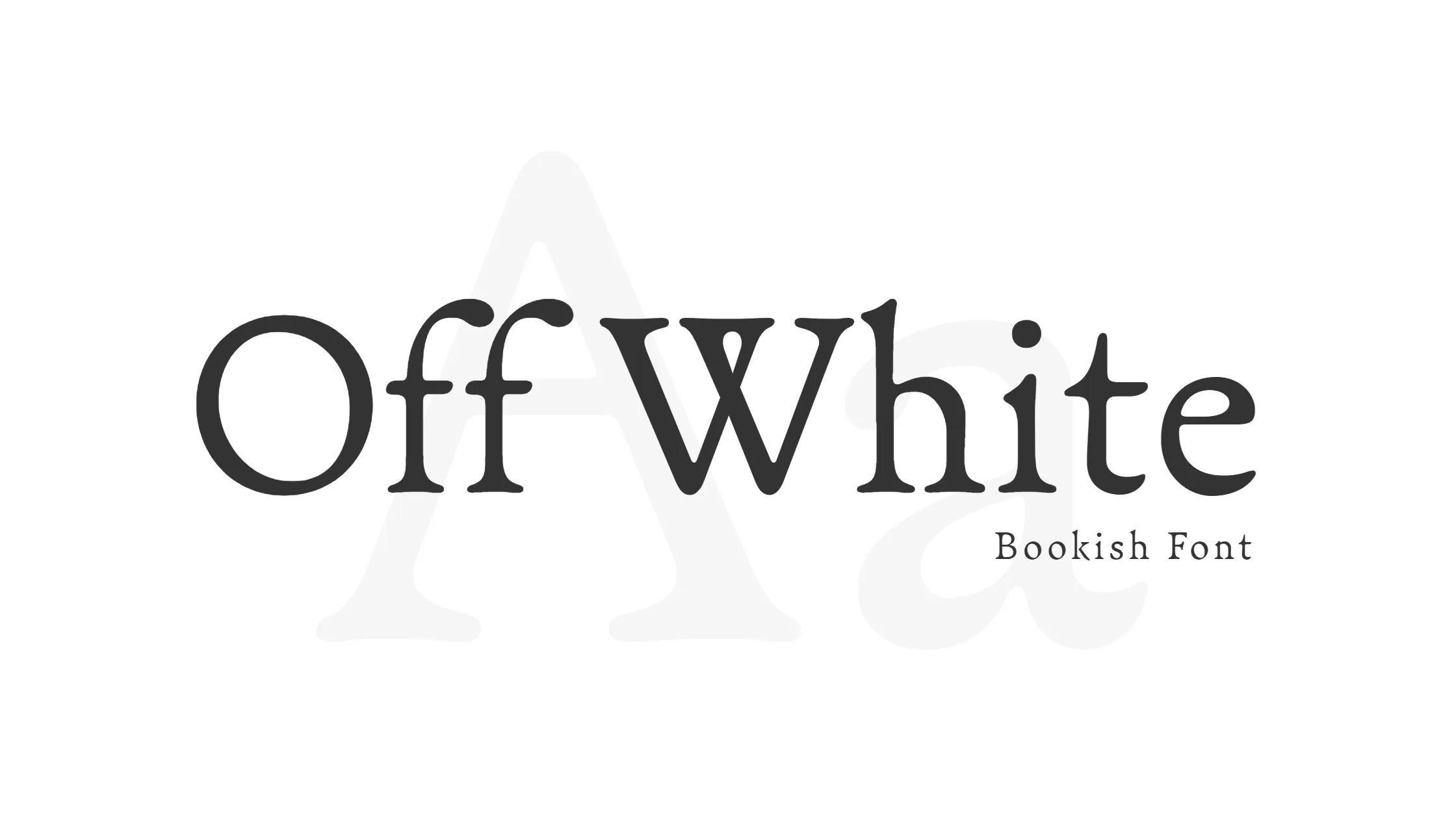
Yo! If you’re here looking for the dope Off-White font that’s been blowing up lately, then you’re in the right place! I’m here to hook you up with all the juicy details on this sweet typeface that’s been making waves in the fashion world.
So, let’s start with the basics. Off-White is a super popular fashion brand founded by the legendary Virgil Abloh back in 2012. And if you’ve seen their logo, then you know that it’s got a pretty unique and eye-catching font. That’s the Off White font we’re talking about here.
What makes this font so special? Well, for starters, it’s sleek, modern, and just all-around sexy. It’s the perfect mix of sophistication and edge, which is exactly what you want in a typeface when you’re trying to make a statement.
But here’s the kicker: the Off White font isn’t actually an entirely original typeface. It’s a modified version of a font called “Bookish” that was designed by Niklas Ekholm in 2013. That’s right, Off-White didn’t reinvent the wheel when it comes to fonts. They just took an already awesome font and made it even cooler.
Now, let’s talk about the feel of the Off White font. When you look at it, you can tell that it’s got a human touch to it. It’s not a cold, robotic font that’s been generated by a computer. There’s a warmth and personality to it that makes it feel like it was written by hand.
And that’s exactly what you want in a font these days. With so much digital noise out there, it’s refreshing to see a typeface that feels like it was created by a real person. It adds a layer of authenticity and humanity to your design work that can really make it stand out from the crowd.